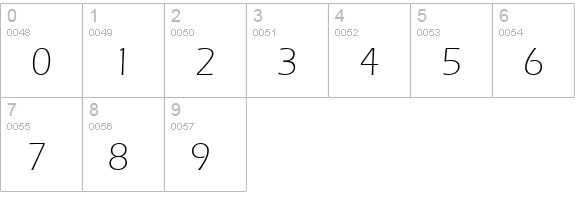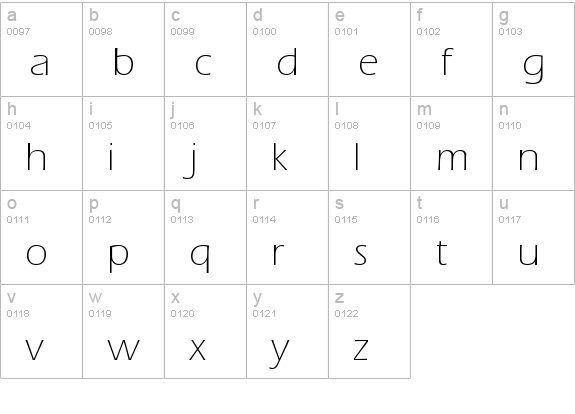
Speedo Light SSi Light is a refined, elegant variant in the Speedo typeface family \xE2\x80\x94 well suited to elegant body text, refined sub-headings, and luxury branding.
Speedo Light SSi Light is a sleek and modern font that exudes elegance and sophistication. With its clean lines and balanced proportions, this font is perfect for adding a touch of style to any design project. Whether you are creating a logo, designing a website, or crafting a stunning brochure, Speedo Light SSi Light will elevate your work to new heights. This font features a light weight that adds a delicate and airy feel to your typography. Its slim letterforms are effortlessly legible, making it ideal for both headlines and body text. The letters flow seamlessly together, creating a harmonious and cohesive look that will captivate your audience. One of the best things about Speedo Light SSi Light is that it is freely available to download at FontsMarket.com. This means that you can easily access this amazing font without any cost. Whether you are a professional designer or a hobbyist, you can take advantage of this free font to enhance your creative projects. Don't miss out on the opportunity to elevate your designs with Speedo Light SSi Light. Download it for free at FontsMarket.com and start creating stunning visuals that will leave a lasting impression.